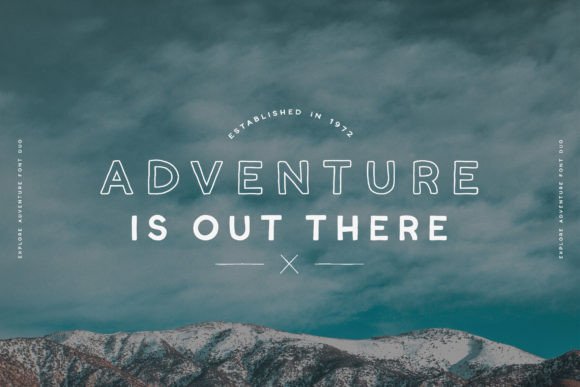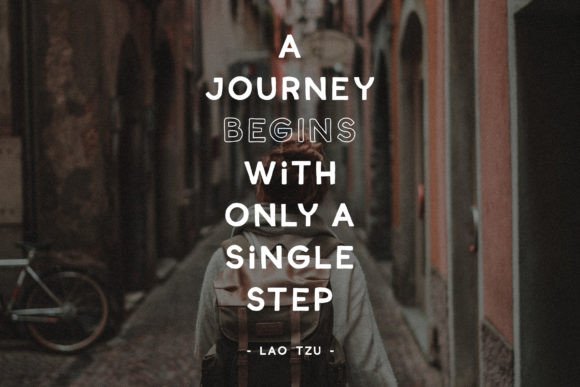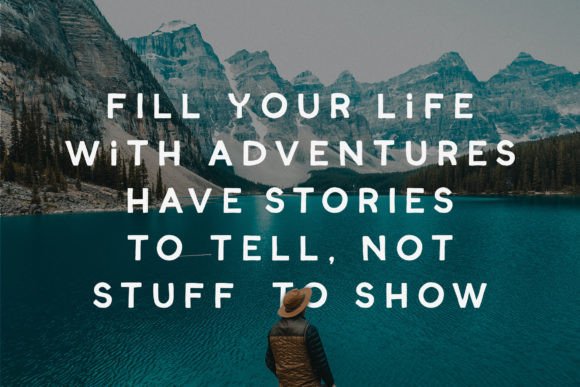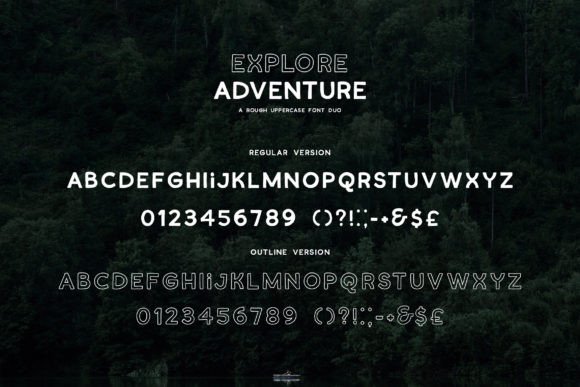
Unleash Your Creativity with Explore Adventure Font
Are you a designer, craftsperson, or simply a creative enthusiast looking for a font that can elevate your projects to the next level? Look no further than the Explore Adventure Font, a modern and cool sans serif font that is sure to capture your heart with its unique and timeless style.
What Makes Explore Adventure Font So Special?
Explore Adventure is not just another font; it’s an experience. Its incredibly distinct style sets it apart from the myriad of fonts available today, making it a perfect choice for those who wish to create spectacular designs that stand out from the crowd. Whether you’re working on a branding project, crafting a poster, or designing a website, Explore Adventure Font offers the versatility and elegance you need.
Key Features of Explore Adventure Font
- Modern and Cool Sans Serif Design: The Explore Adventure Font boasts a sleek and contemporary sans serif design that appeals to modern tastes. Its clean lines and smooth curves make it highly legible and aesthetically pleasing.
- Distinct and Timeless Style: The font’s unique style ensures that your designs have a distinctive look that stands out. At the same time, its timeless quality means it won’t go out of fashion anytime soon, ensuring your projects remain relevant for years to come.
- Versatility: From digital media to print, Explore Adventure Font adapts seamlessly across various platforms and mediums. This versatility makes it an excellent addition to any designer’s toolkit.
Why Choose Explore Adventure Font?
In a world where design trends come and go, Explore Adventure Font offers a refreshing blend of modernity and timelessness. Its distinct style, versatility, and ease of use make it an invaluable resource for designers and crafters looking to create impactful and beautiful designs.
| Font Name | Explore Adventure Font |
| Author | Lollipop Hand Drawn |
Explore Adventure Font is more than just a typeface; it’s a tool for creativity and expression. Its modern and cool sans serif design, coupled with its distinct and timeless style, makes it the perfect choice for a wide range of design projects. So why wait? Dive into the world of Explore Adventure Font today and discover a new way to bring your creative visions to life!